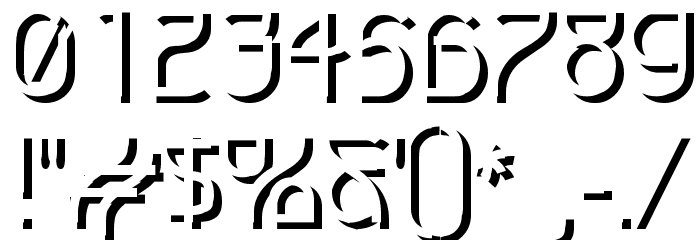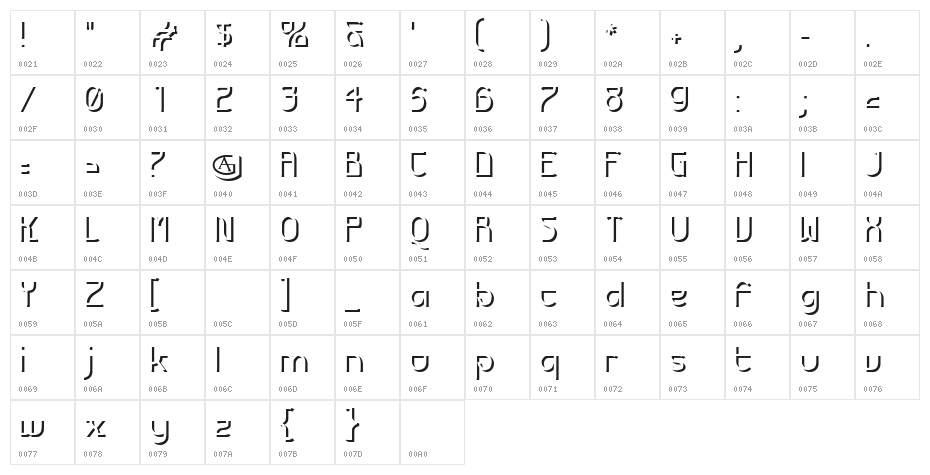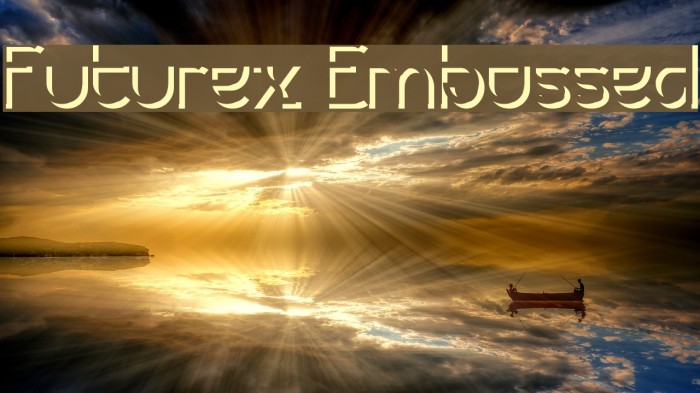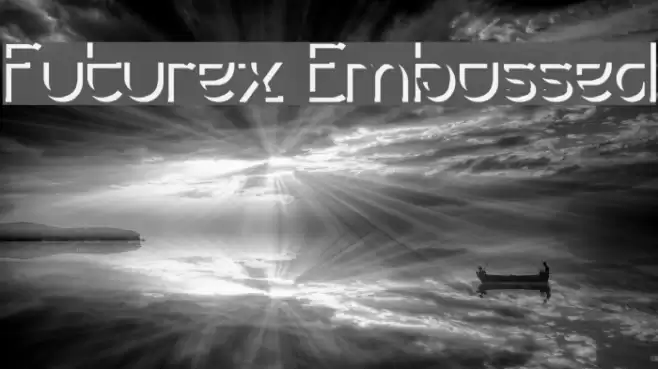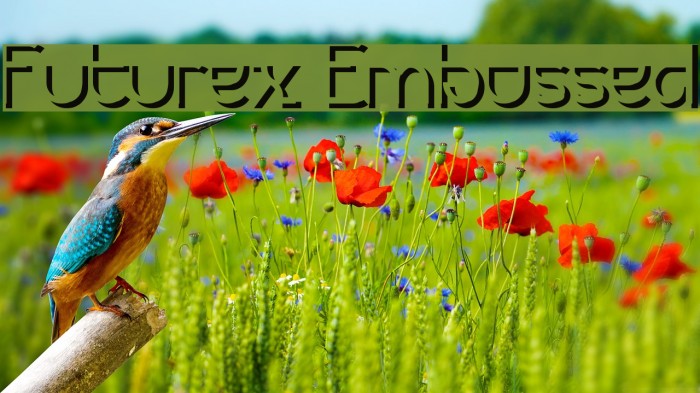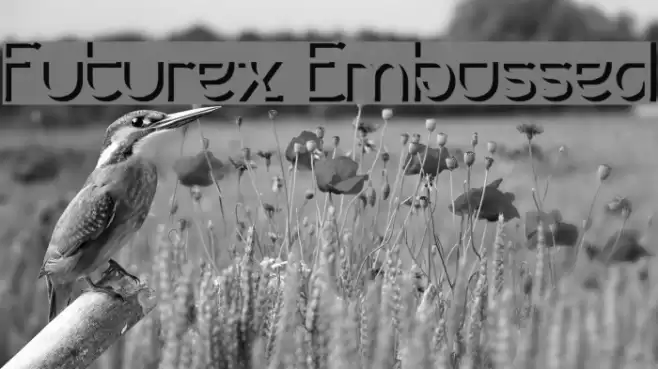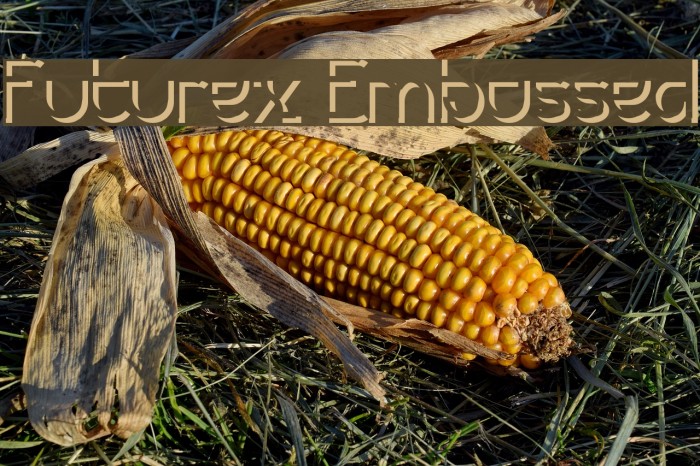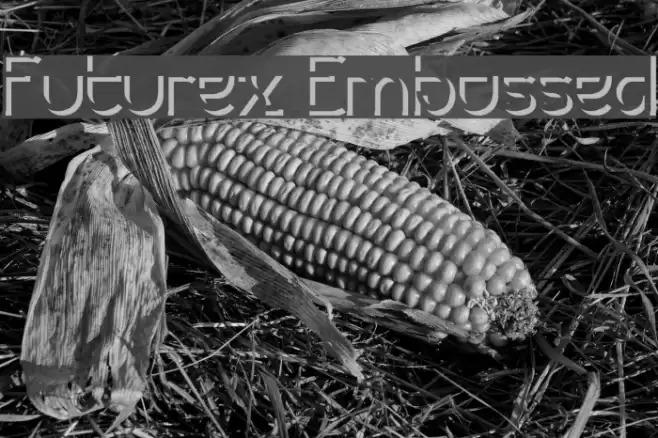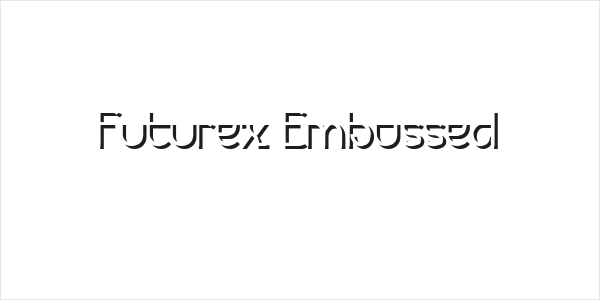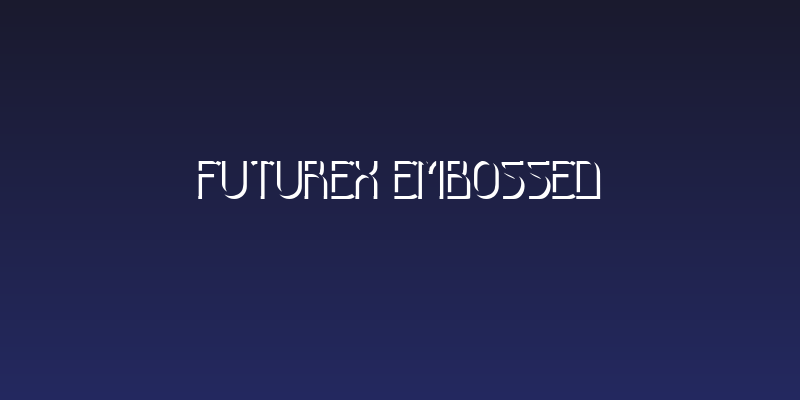
Futurex Embossed Font
Futurex Embossed Description
This font features a futuristic and embossed style, characterized by its bold and geometric letterforms. The uppercase and lowercase letters maintain a consistent design, with sharp angles and a sense of depth that gives the impression of being carved or engraved. The numbers and special characters follow the same aesthetic, ensuring uniformity across all glyphs. The font's unique style makes it stand out, with a modern and tech-inspired look that is both eye-catching and versatile.
| Proposed Projects | Ideal for technology branding, sci-fi themed projects, video game titles, and modern poster designs. |